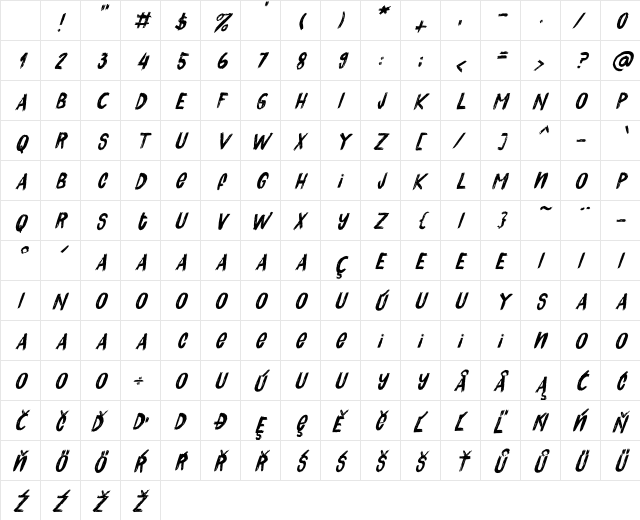
Complete Quick Pick I Italic glyph index. Displaying only characters natively supported by Quick Pick I Italic font.
Quick Pick I is a composed and adaptable typeface that performs quietly and consistently across a wide range of design contexts. The slanted form adds forward momentum and visual energy.
Pro Tip: Use Quick Pick I for emphasis, pull quotes, and subheadings where its slanted energy can add rhythm to the layout.